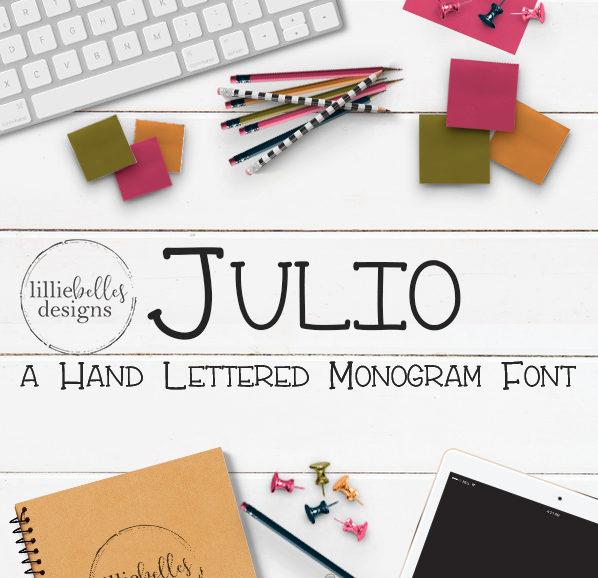
Julio Monogram Font
Julio Monogram Font - An adorable handlettered all uppercase font.
Creating a monogram with the Julio Monogram font is super easy! Type the 1st letter as lowercase, the middle letter as uppercase, and the 3rd letter as lowercase. Your monogram's done! You can also use this font just like a regular font to add cute type to your designs.